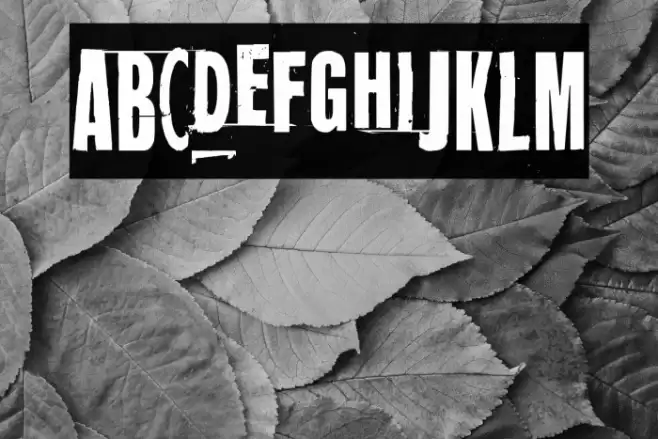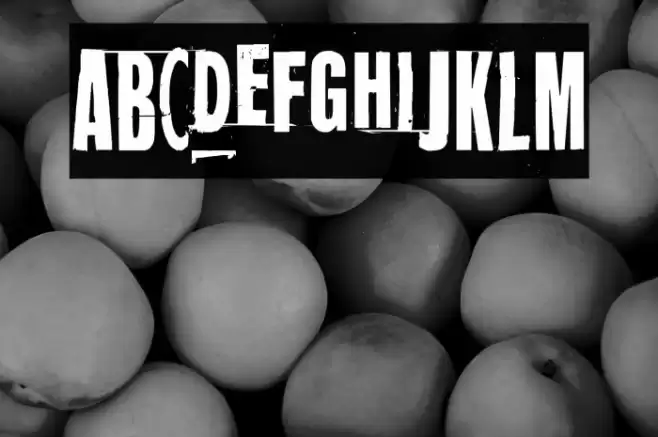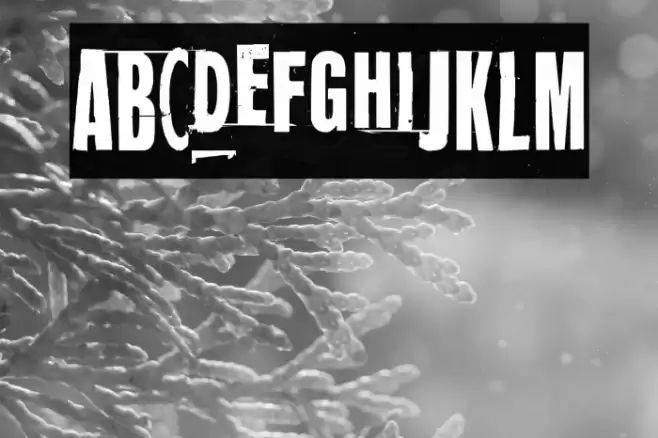
Mugwort Maximum Font
Mugwort Maximum Description
This font features a bold and distressed style, with a rugged, grunge-like appearance. The characters are bold and blocky, with uneven edges and a textured look that gives them a worn, vintage feel. The uppercase and lowercase letters maintain a consistent height, while the numbers and special characters follow the same distressed aesthetic. This font is ideal for projects that require a strong, impactful visual presence, such as posters, album covers, or any design that aims to convey a sense of edginess or rebellion.
A bold, distressed font with a rugged, grunge-like appearance from Uncategorized fonts.
- Font: Mugwort Maximum
- Proposed Projects: Ideal for posters, album covers, and edgy design projects.
- Overall Style: Vintage